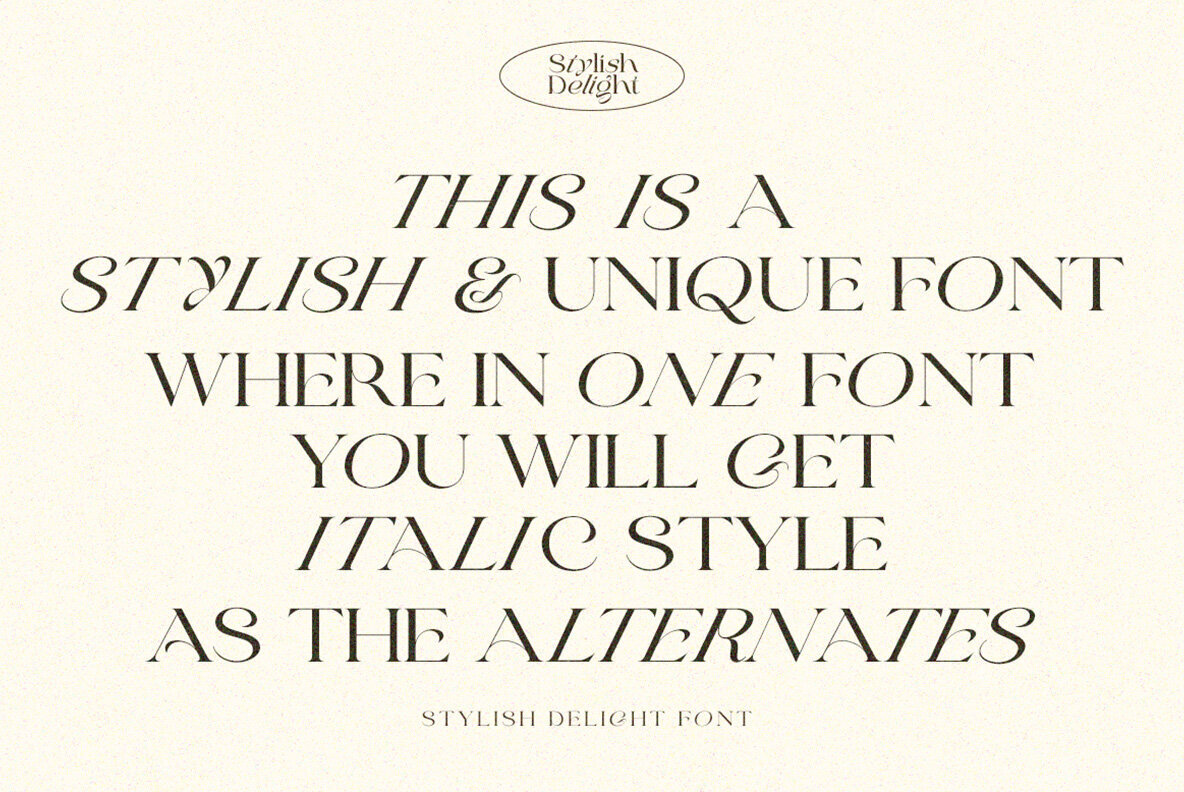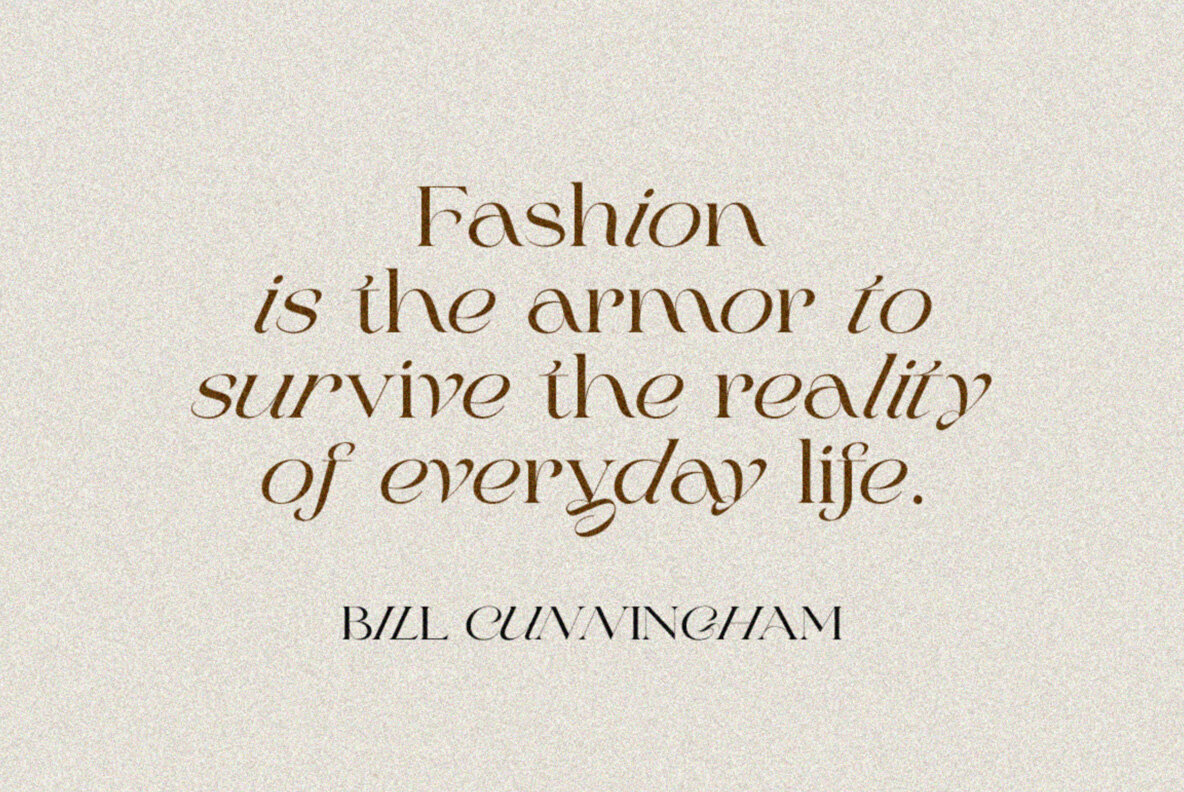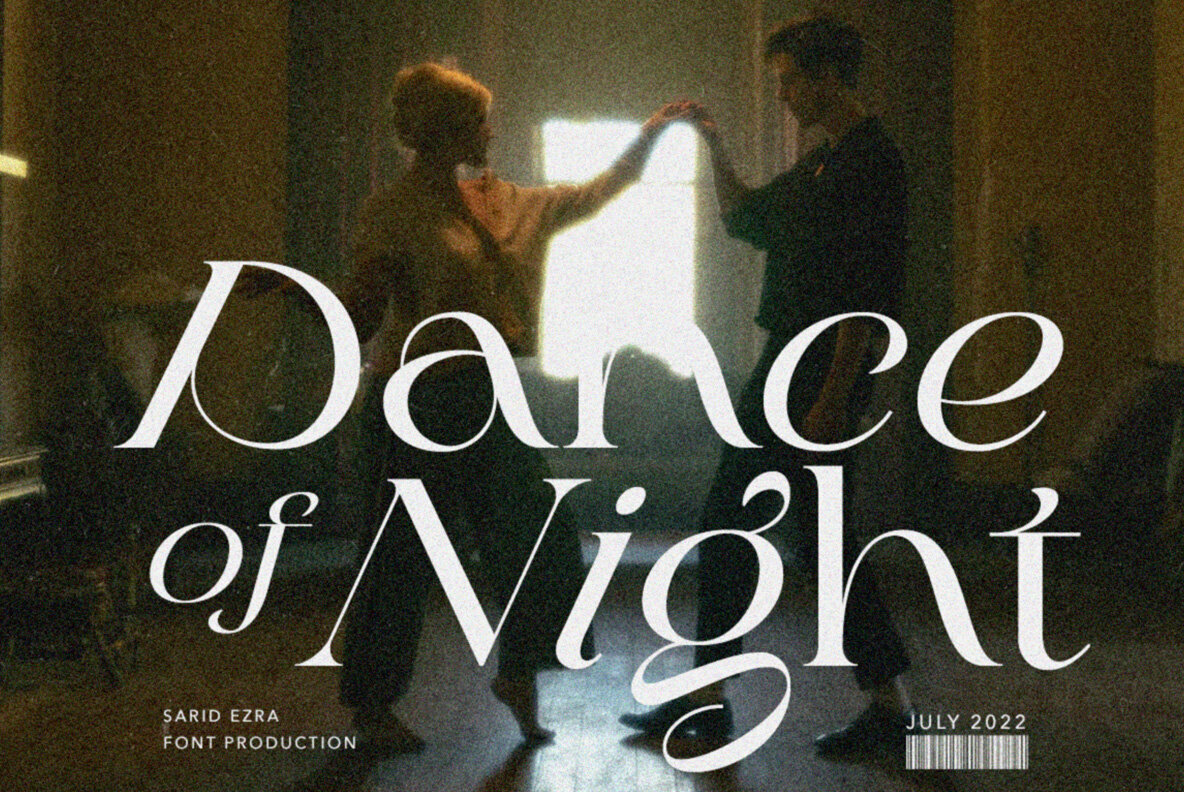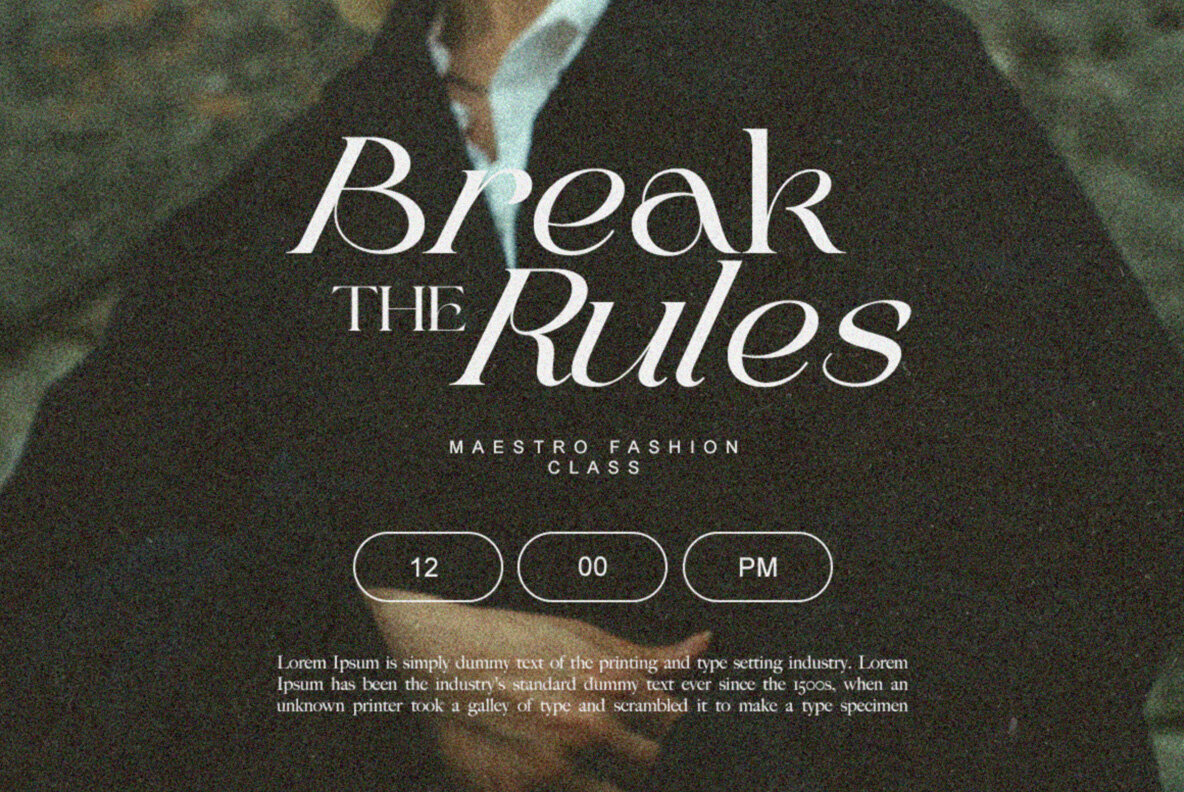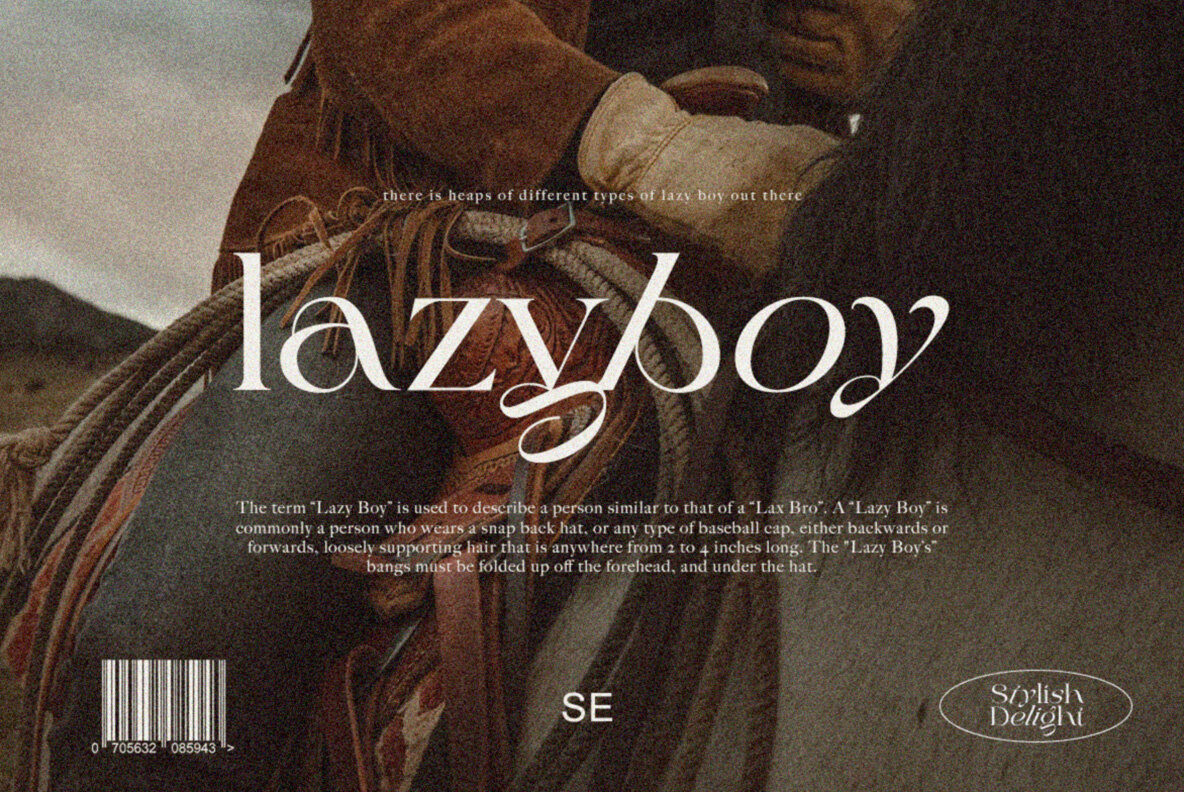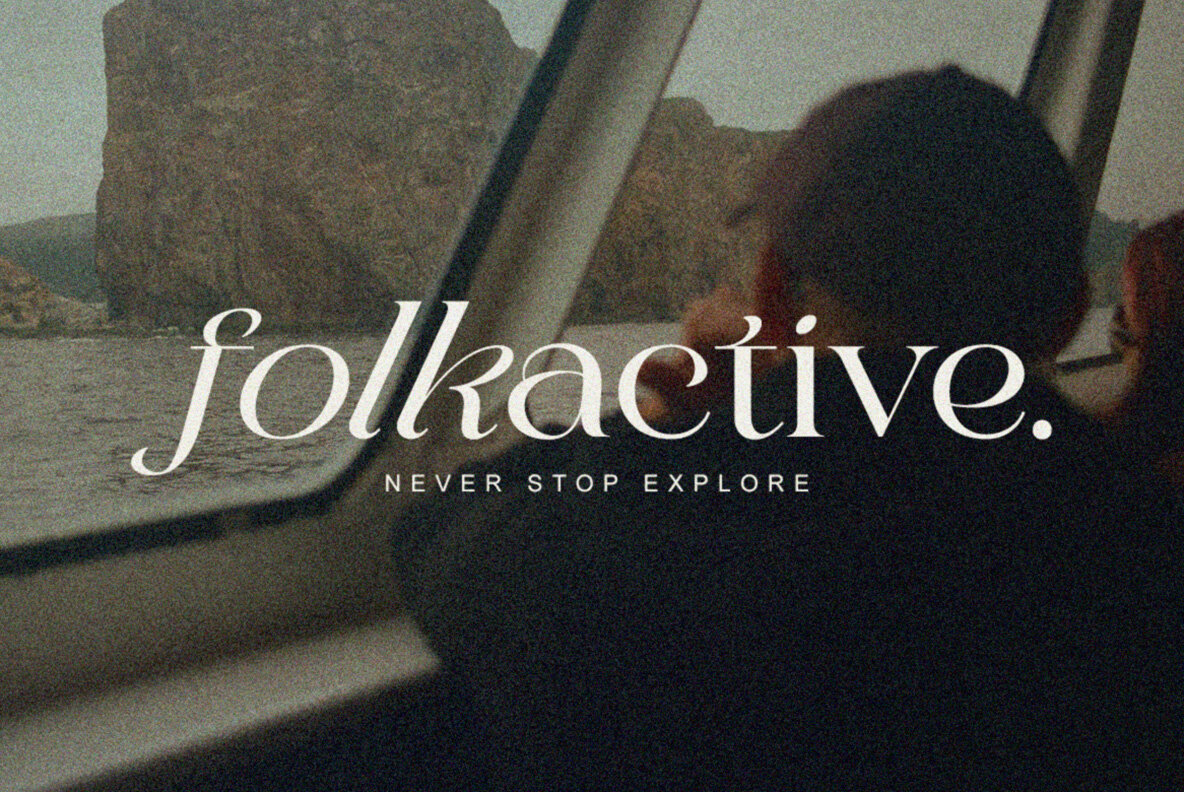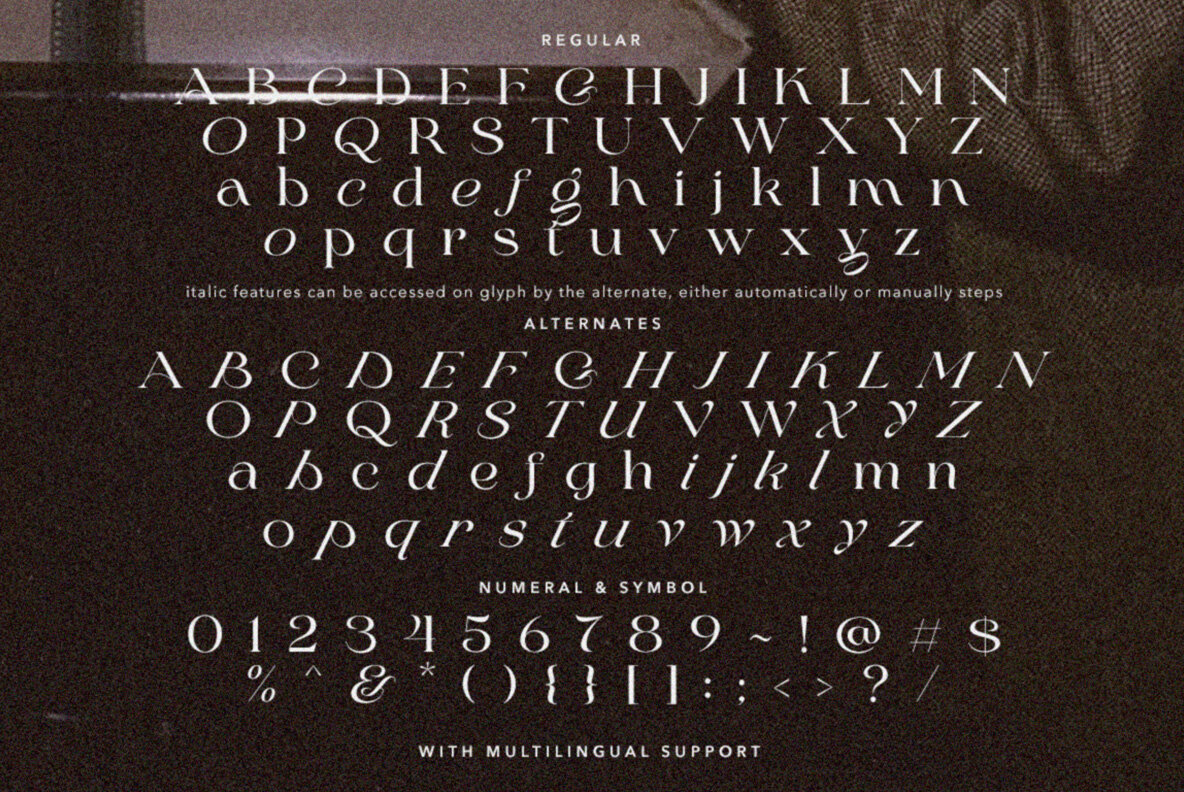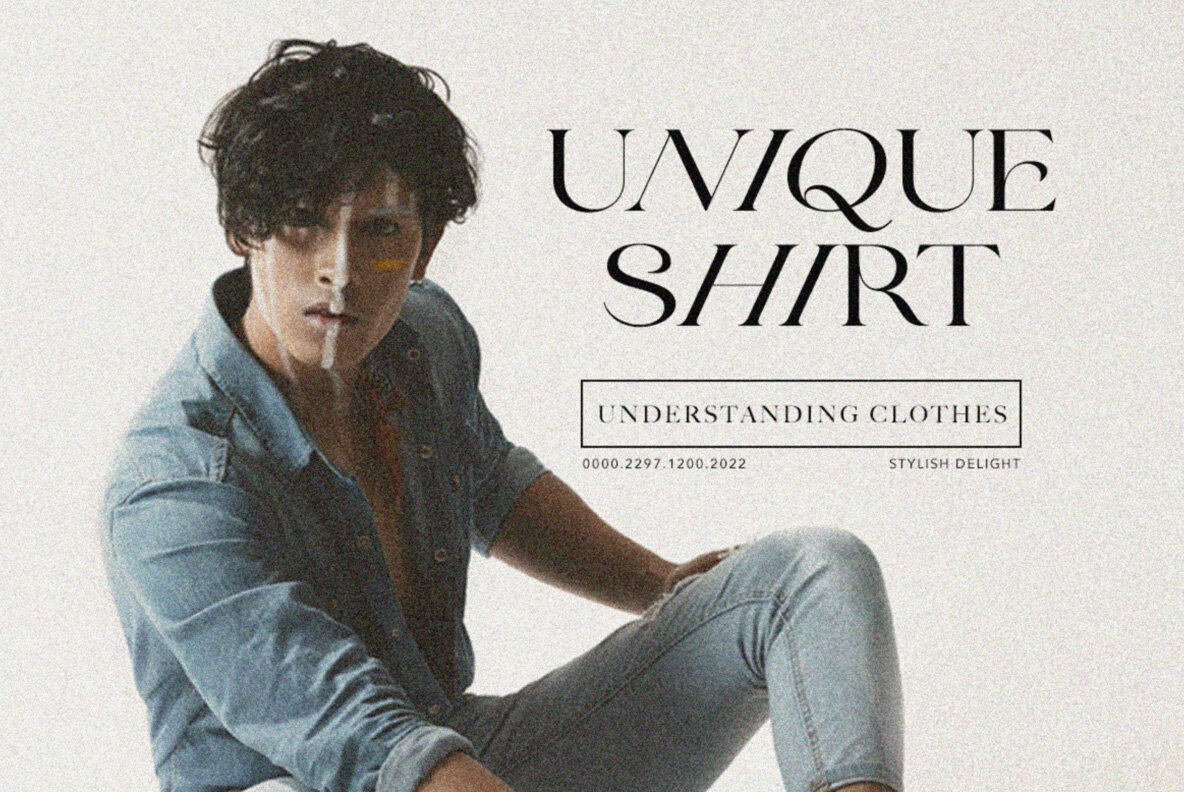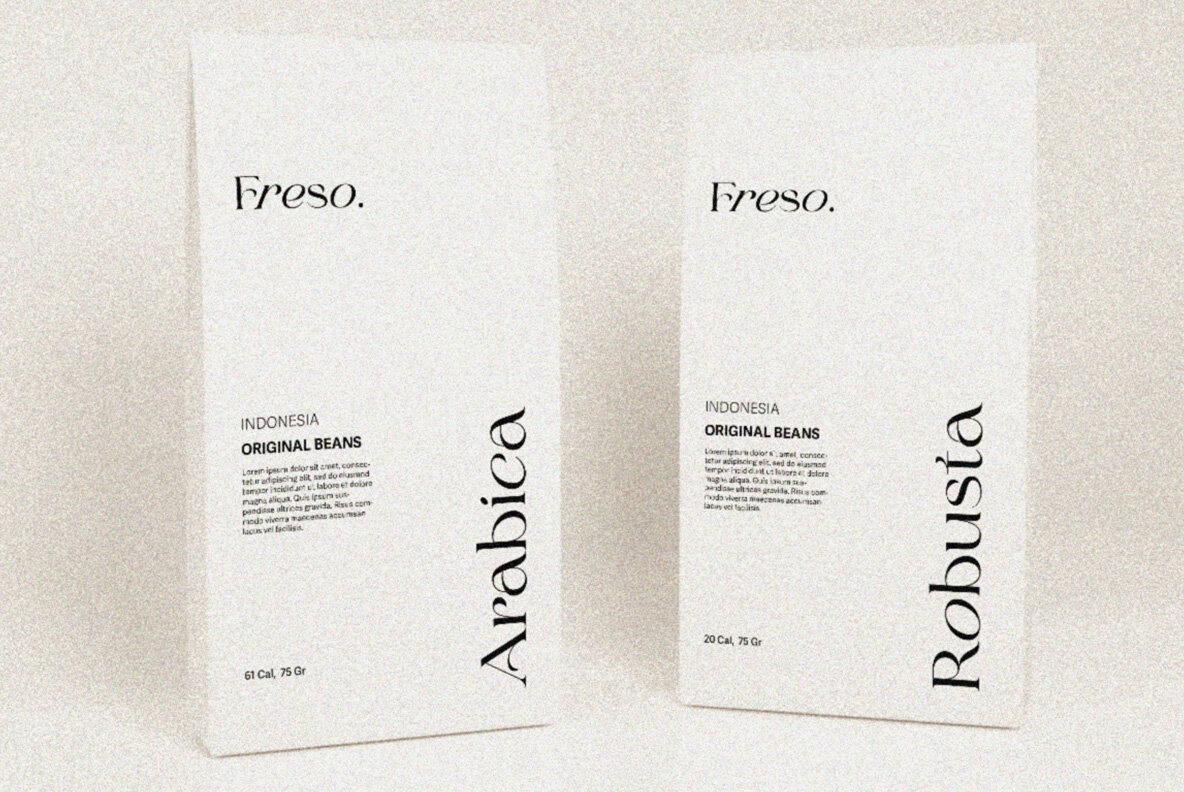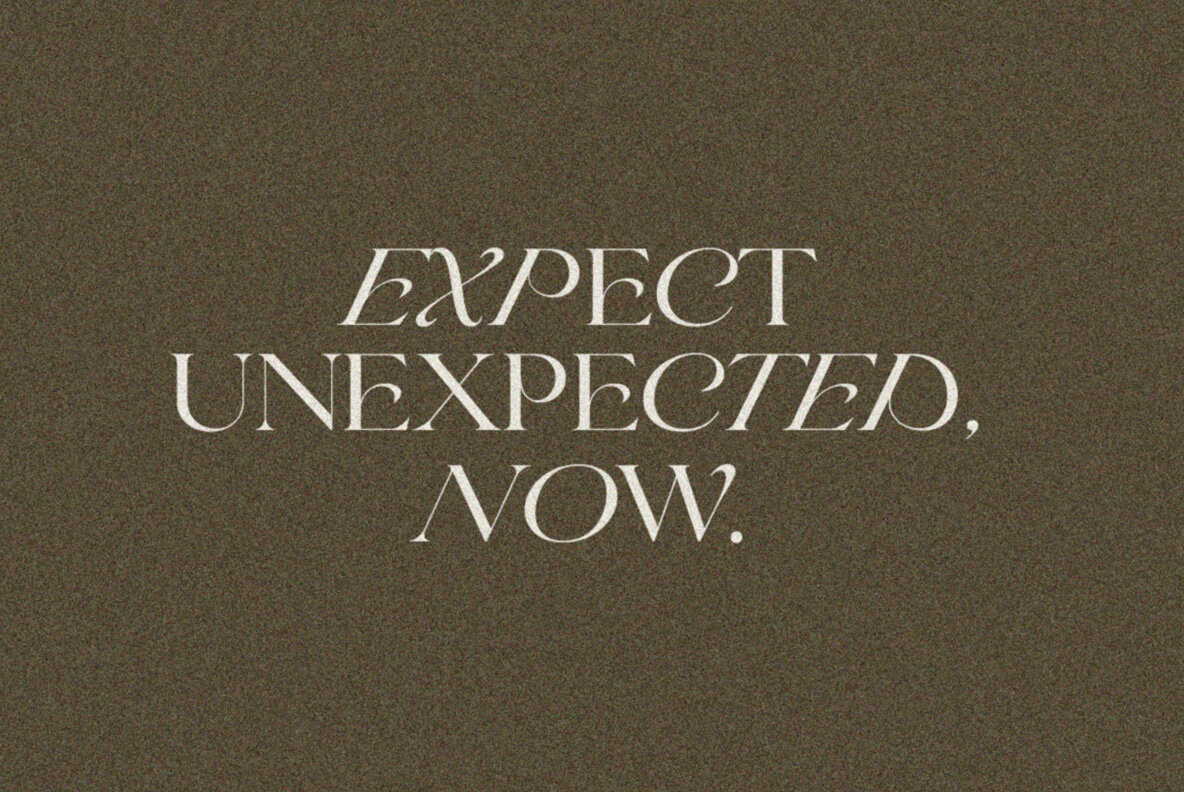
Stylish Delight Font
To make your presentation or logo more attractive and fashionable, Stylish Delight is here! You can use this stylish font for branding purposes that are ideal in any situation from logotype to quotes on social media sites like Instagram, Facebook, etc.
- Number & Symbol
- Multi language
- Italic as Alternates